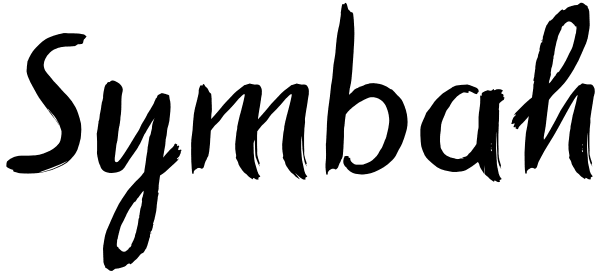
Symbah
Symbah is fun, a carefree hand drawn typeface with a childlike spirit. Made with a brush and ink, and then converted into a digital format for you to enjoy. The design is fresh, organic and produced purely by hand and brush, a technique not...